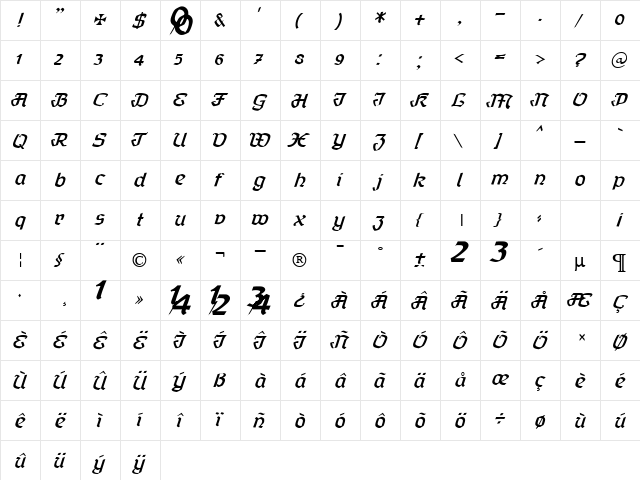
Fractur Cursive Normal
Design Context for Fractur Cursive Typeface
Fractur Cursive flows with the natural rhythm of handwritten lettering, making it ideal for designs that call for warmth and personal expression.
Font Pairing: Combine Fractur Cursive with a simple geometric sans for maximum contrast — the tension between flowing curves and clean structure is a classic typographic pairing.
Pro Tip: Use Fractur Cursive for short runs of text — names, titles, or taglines. Extended body copy in script faces tires the eye quickly.